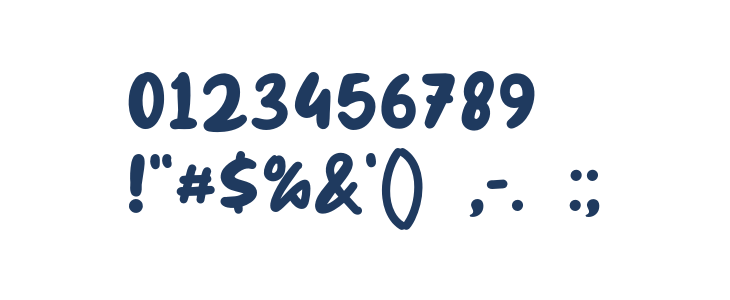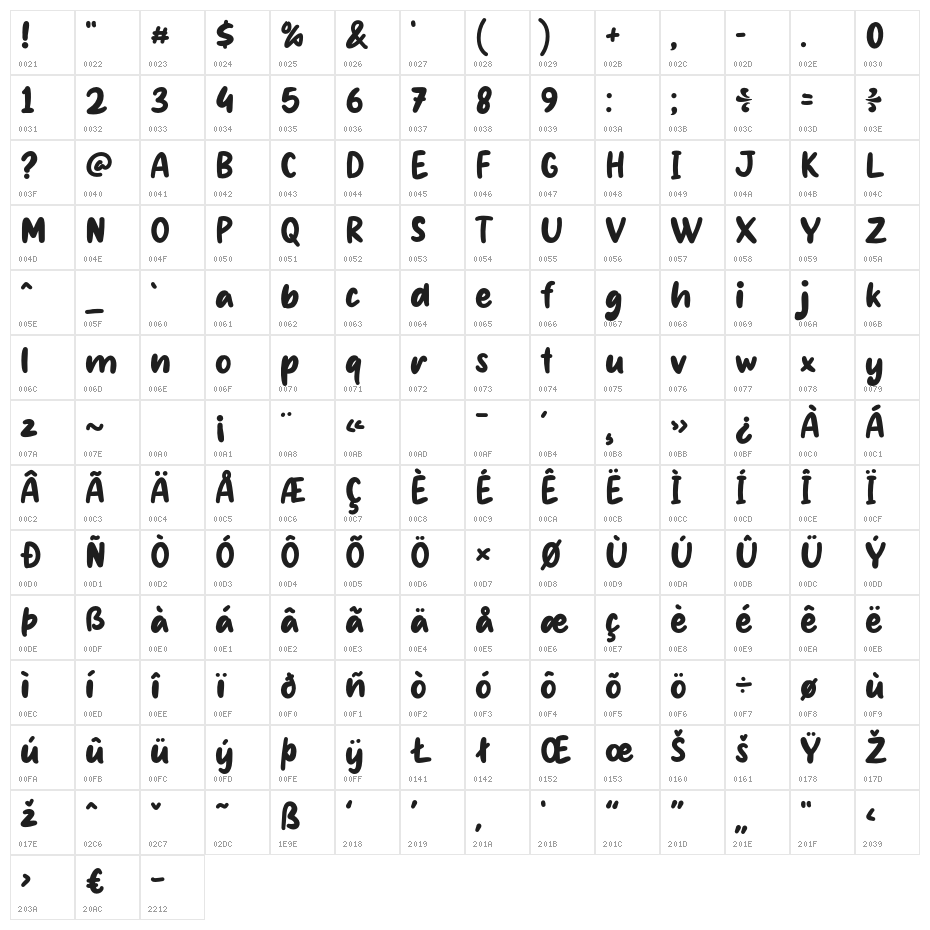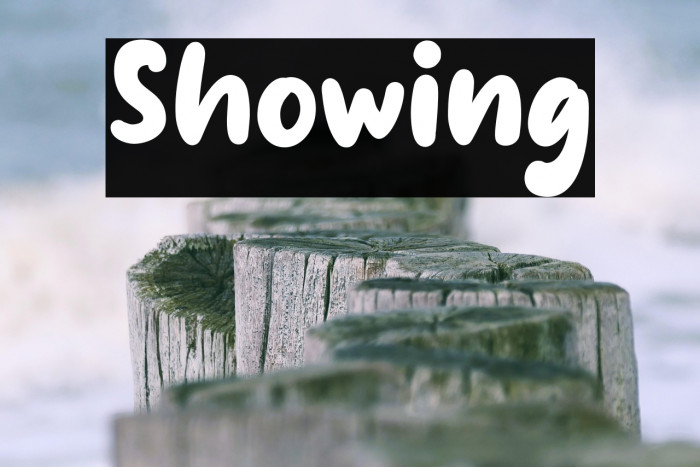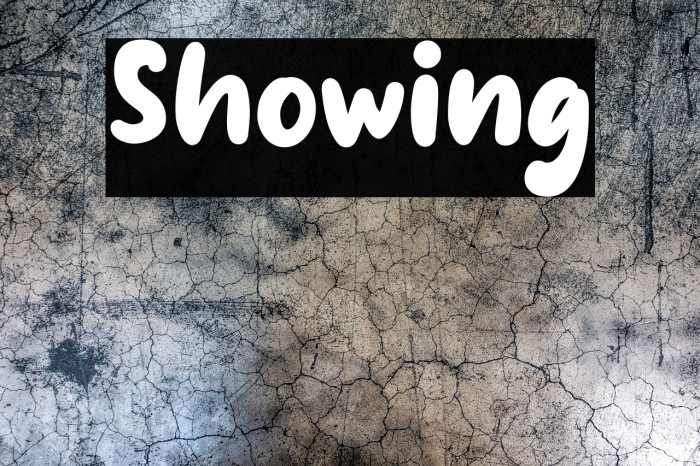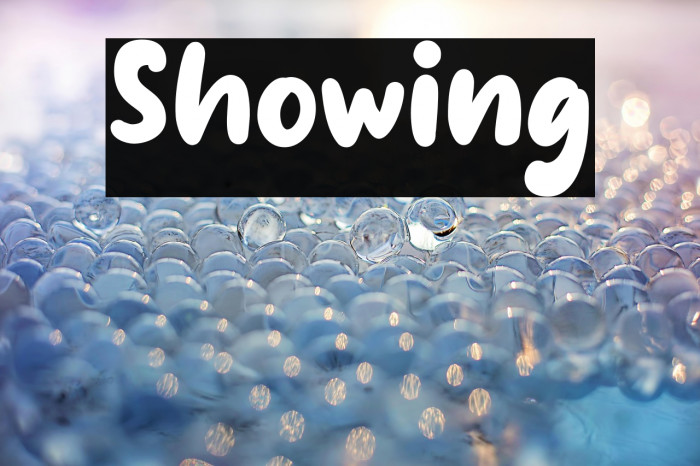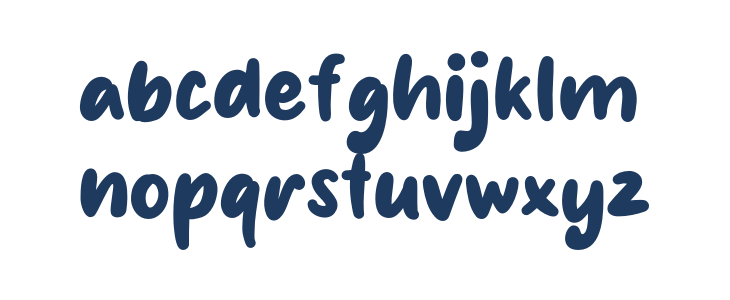
Showing Font
Showing Description
This playful and bold font features rounded, smooth edges that give it a friendly and approachable appearance. The characters are slightly irregular, adding a hand-drawn feel that enhances its casual and informal style. The uppercase and lowercase letters maintain a consistent weight, providing a balanced and cohesive look. The numerals and special characters are designed to match the overall aesthetic, ensuring uniformity across all text elements. This font's distinct personality makes it ideal for projects that require a touch of whimsy and creativity.
| Overall Style | Casual |
| Use Case | Headlines, Logos, Informal Text |
| Proposed Projects | Perfect for children's books, playful branding, greeting cards, and informal invitations. |